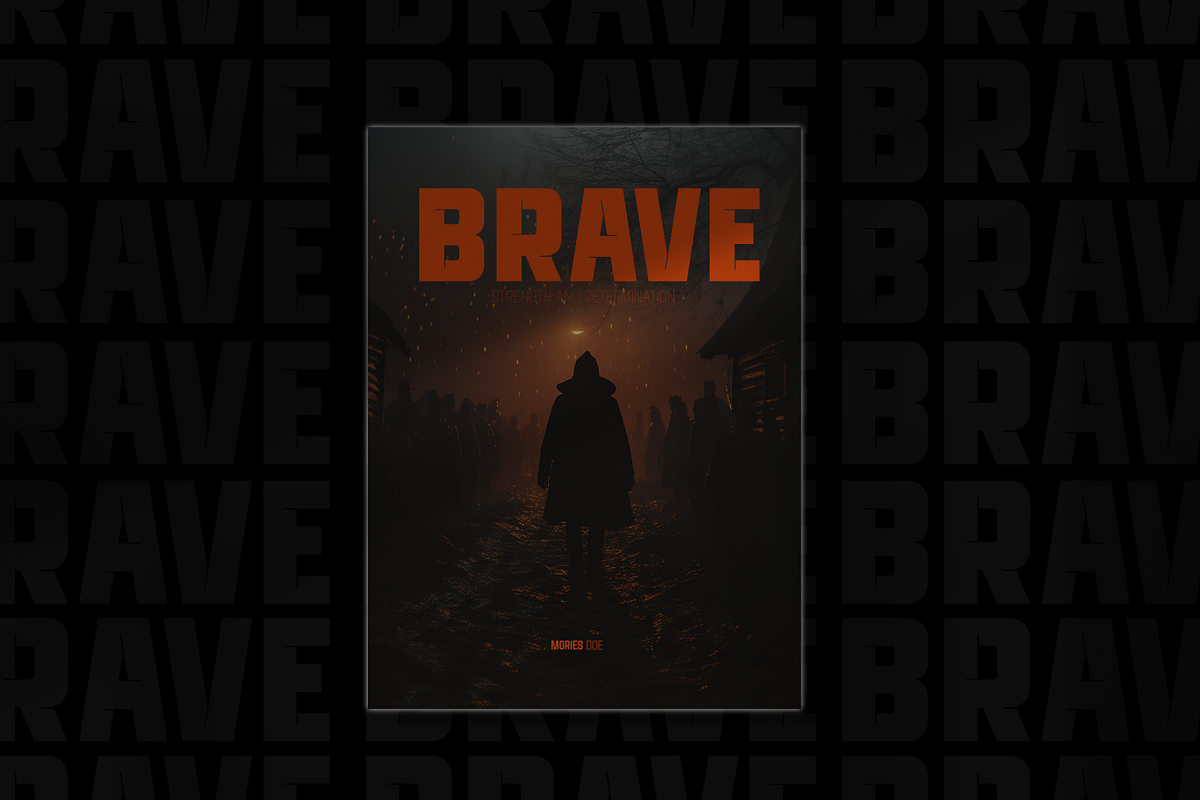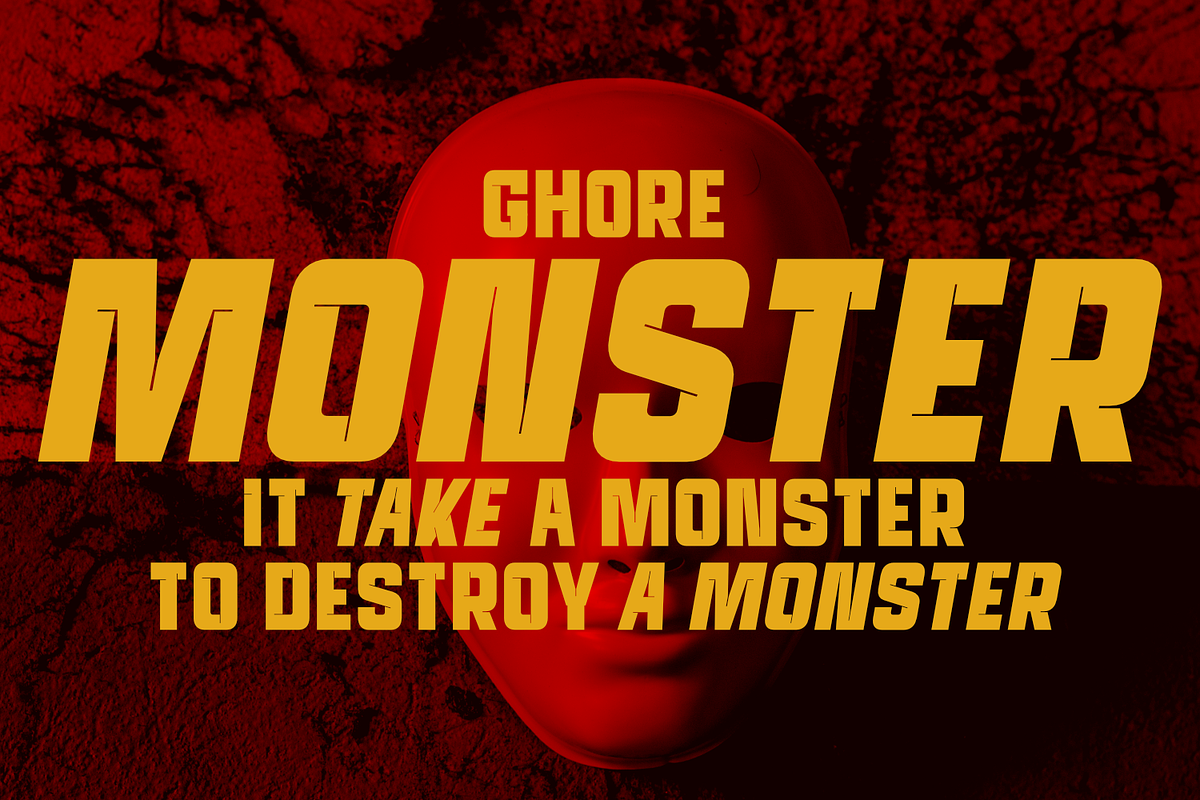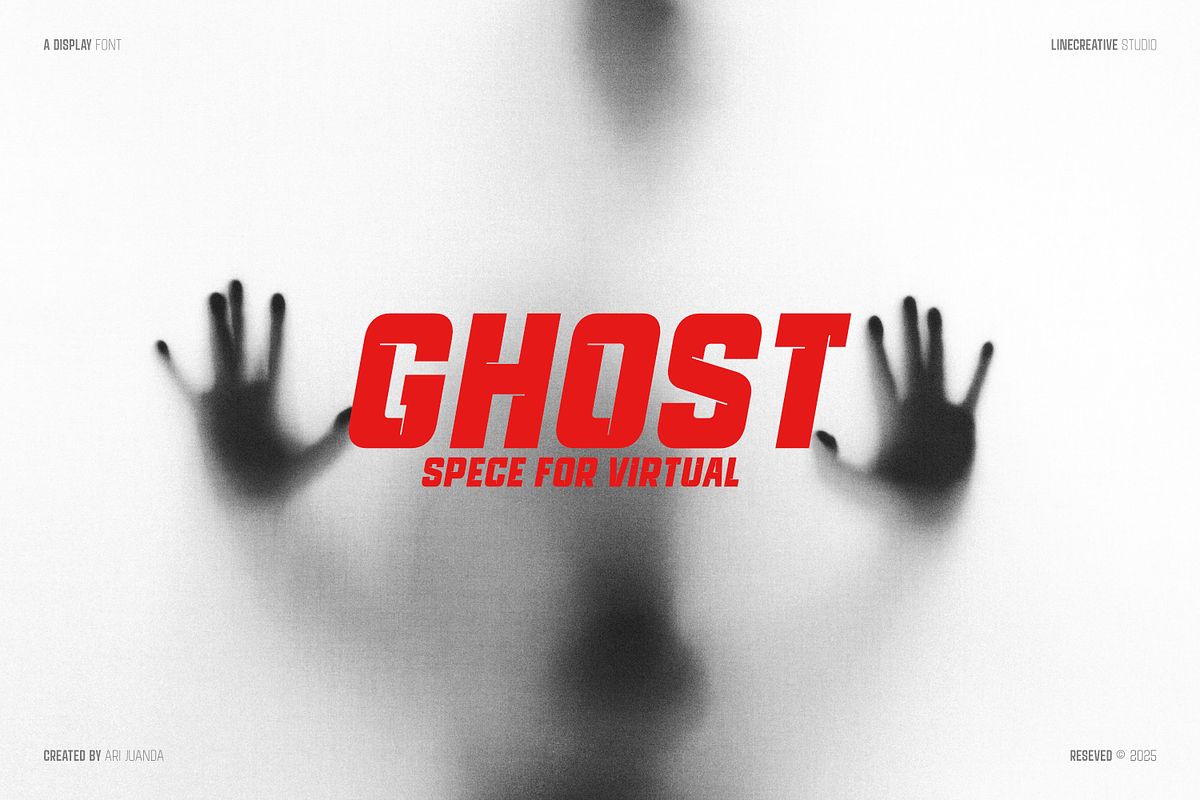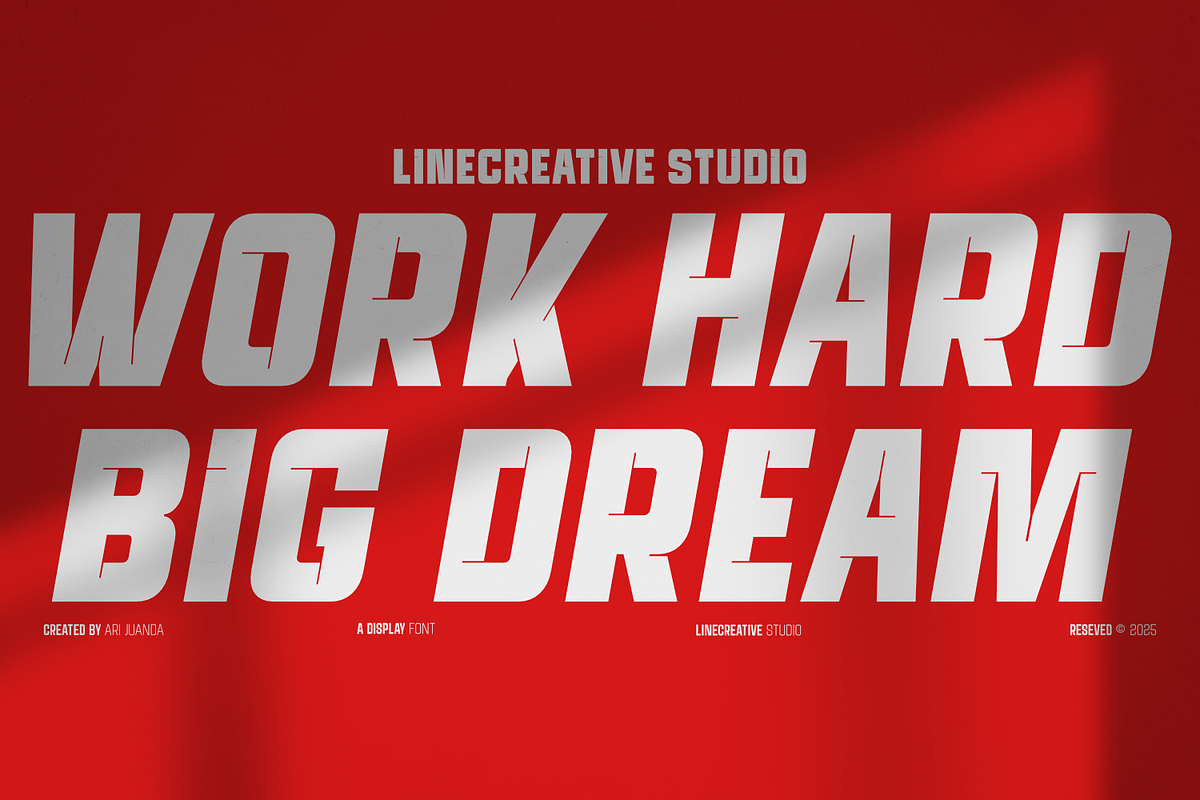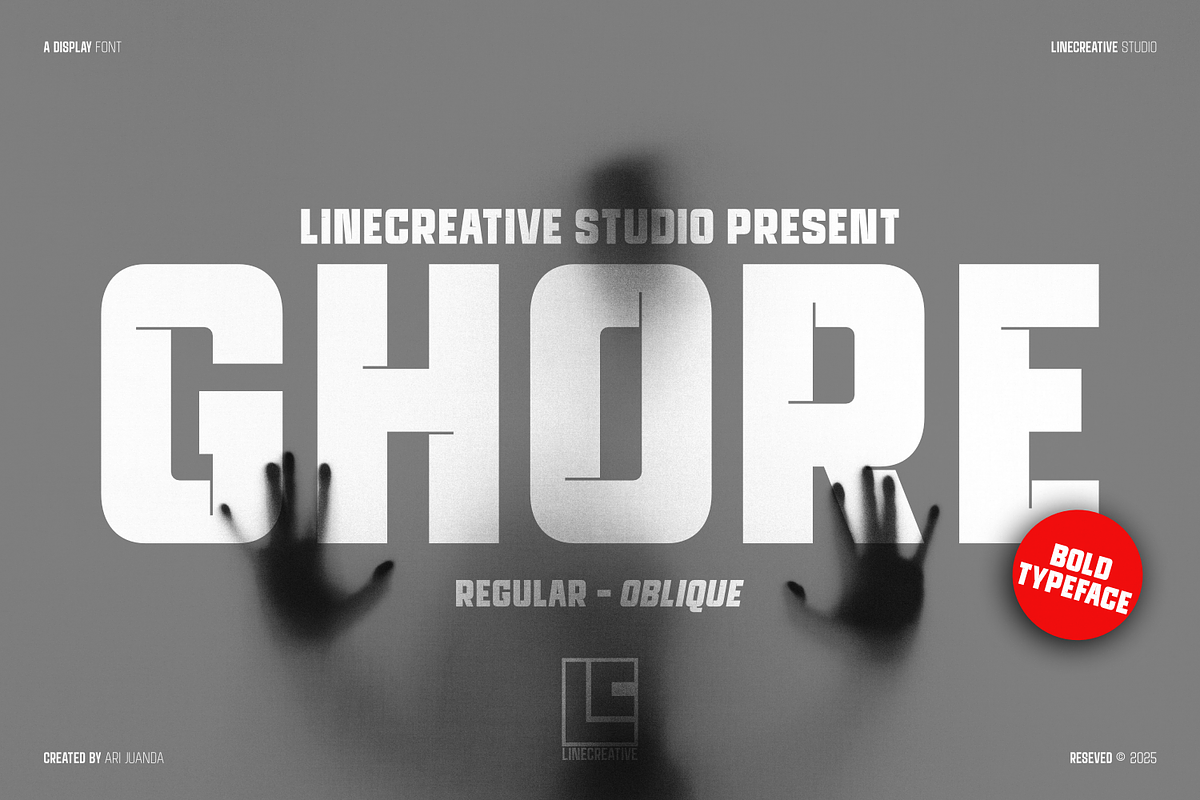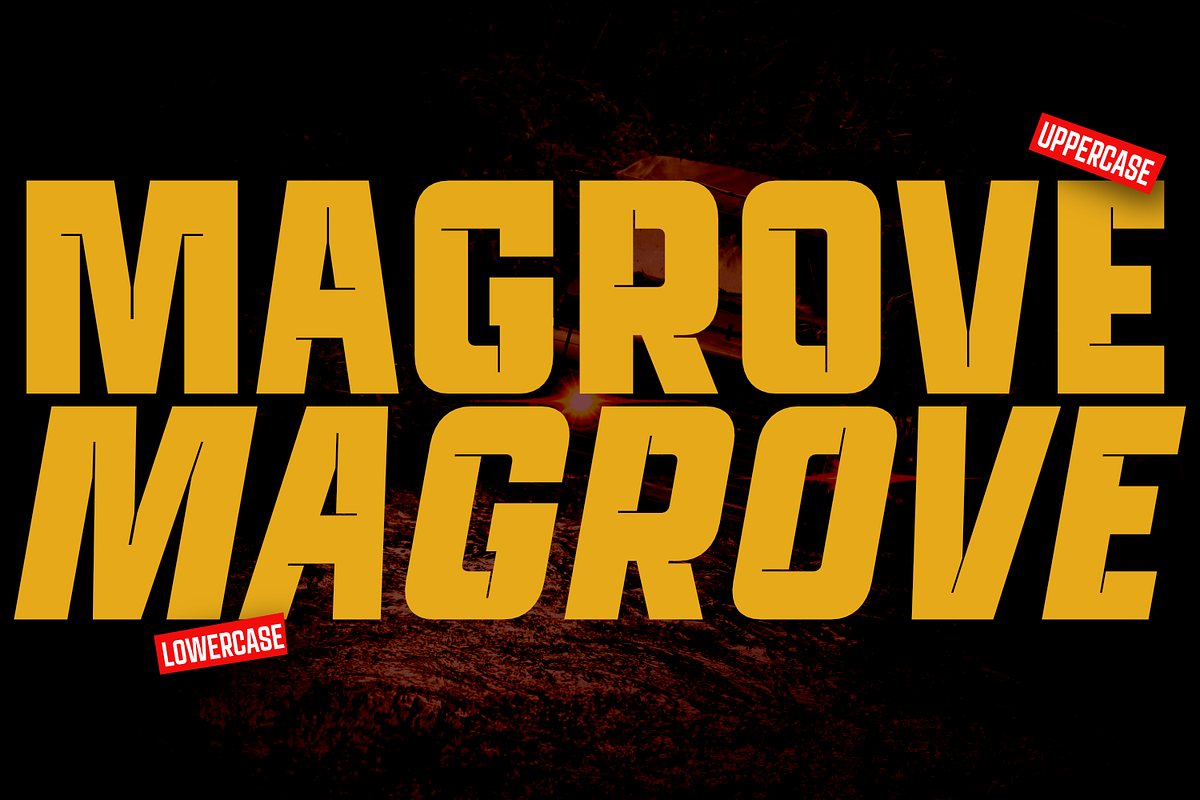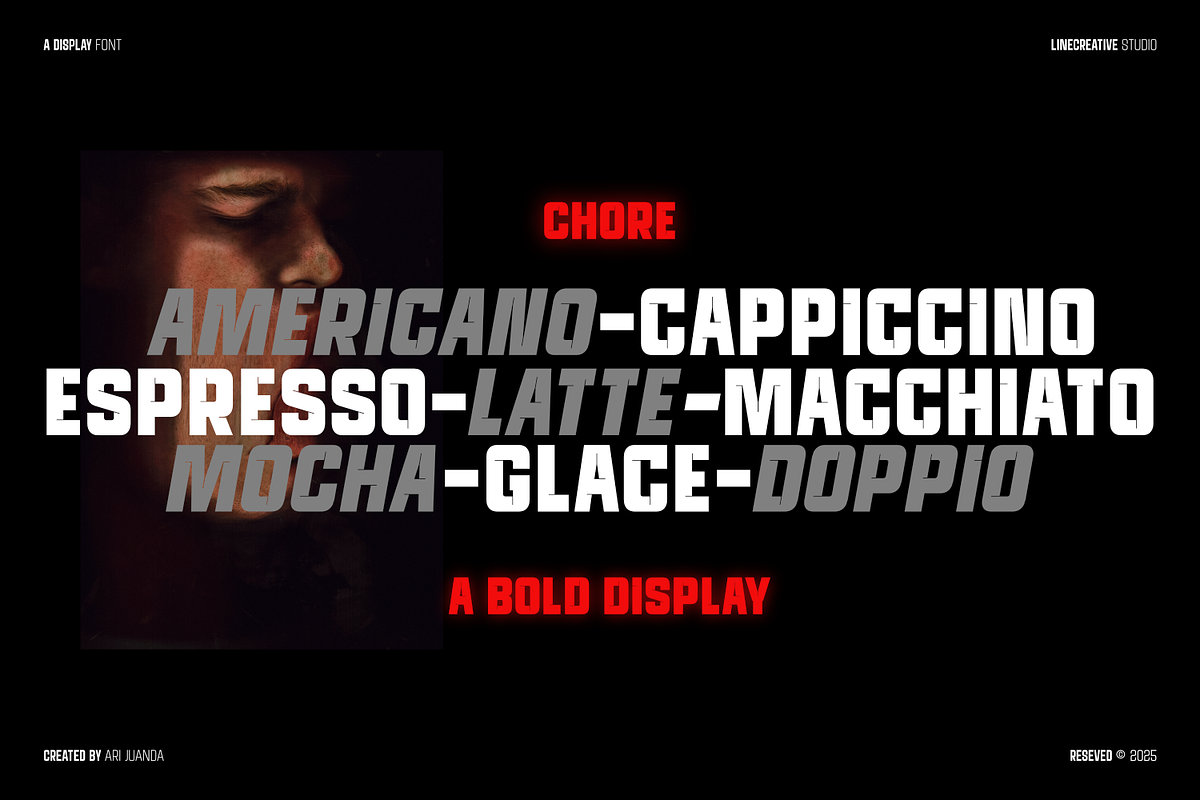
Ghore
Introducing Ghore! A modern sans display font with a bold style, with sharp curves at each corner of the font body for a sharp and futuristic look. It comes in two variable fonts, regular and oblique, for a sportier and sharper look.